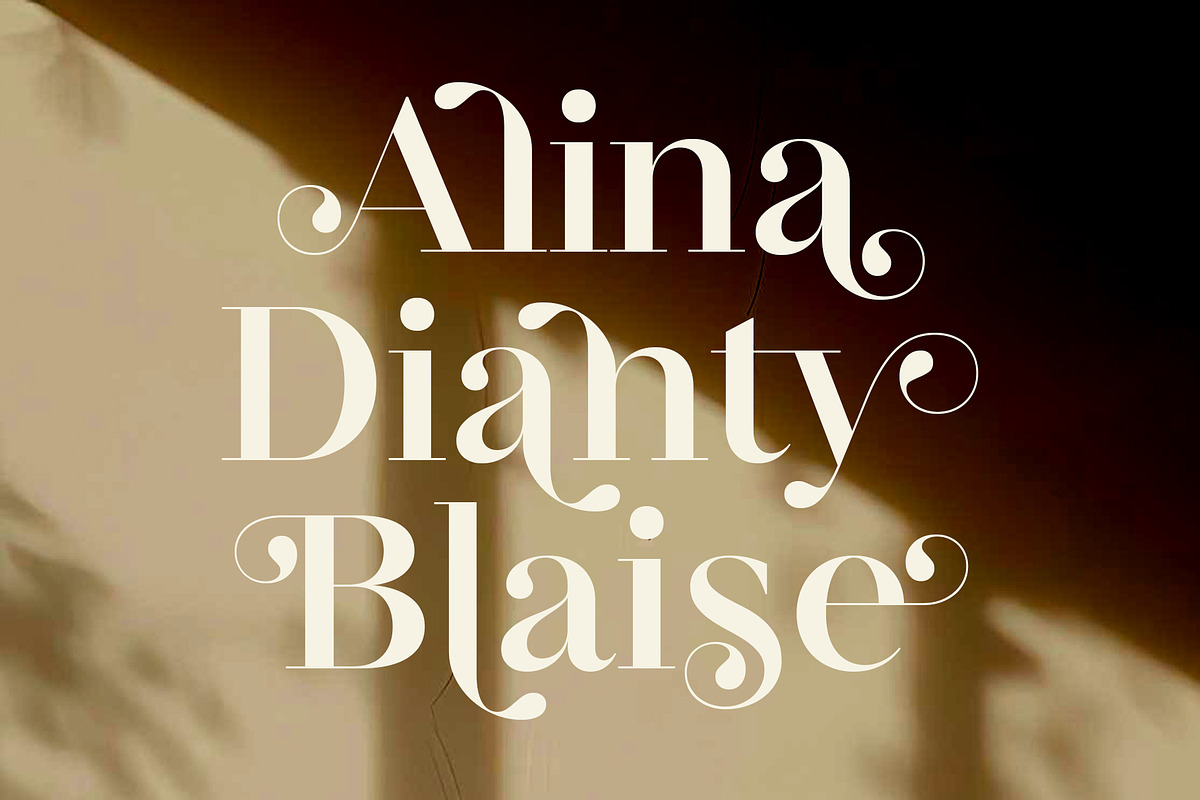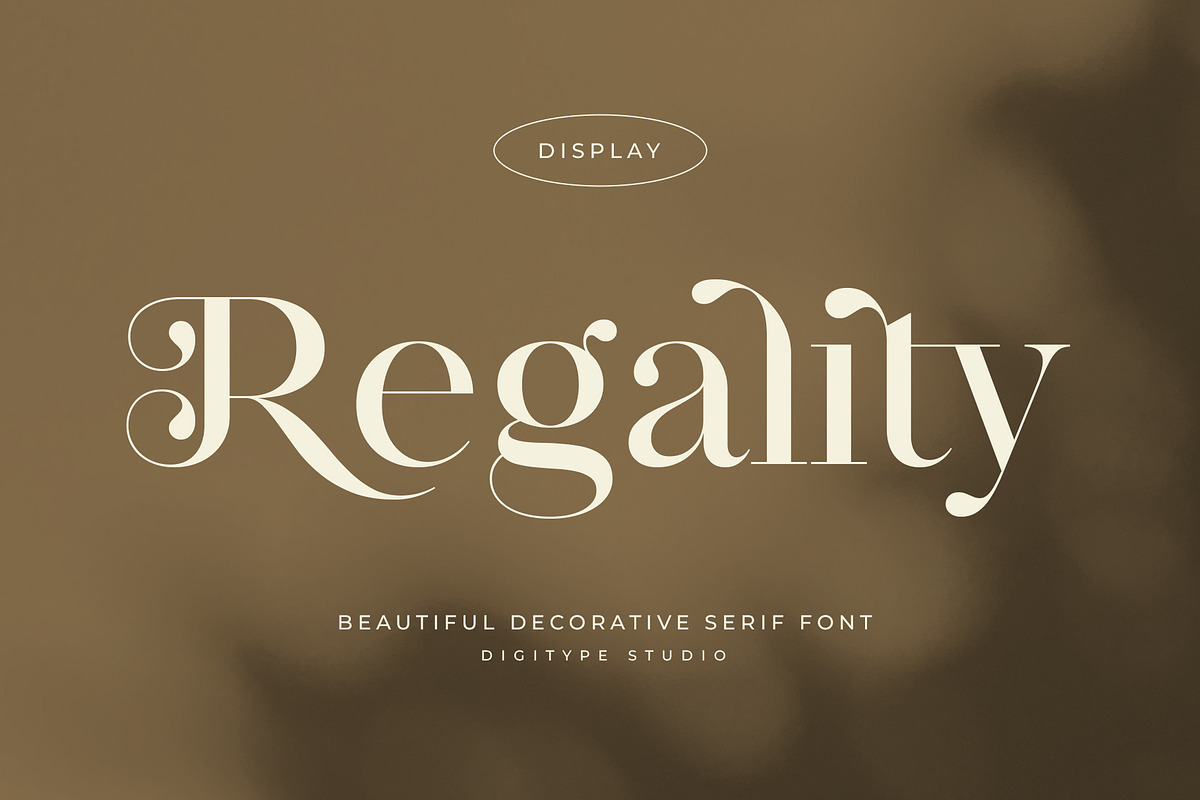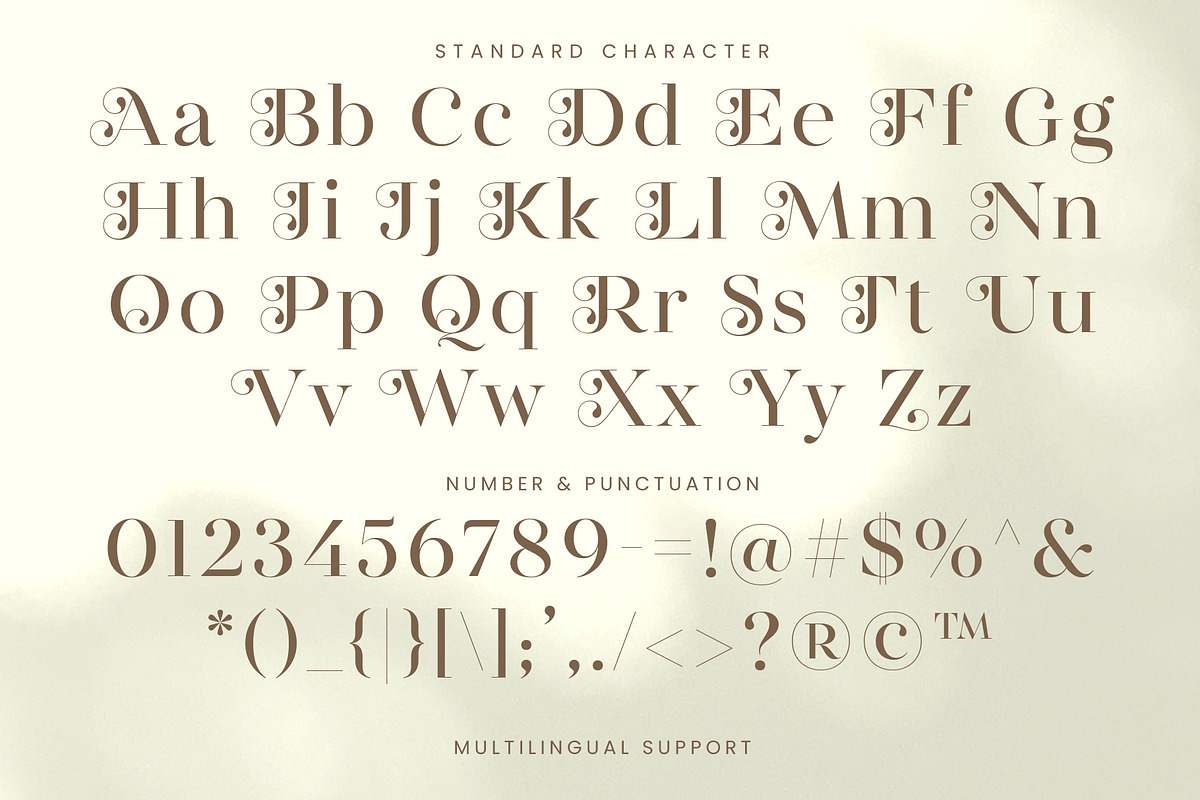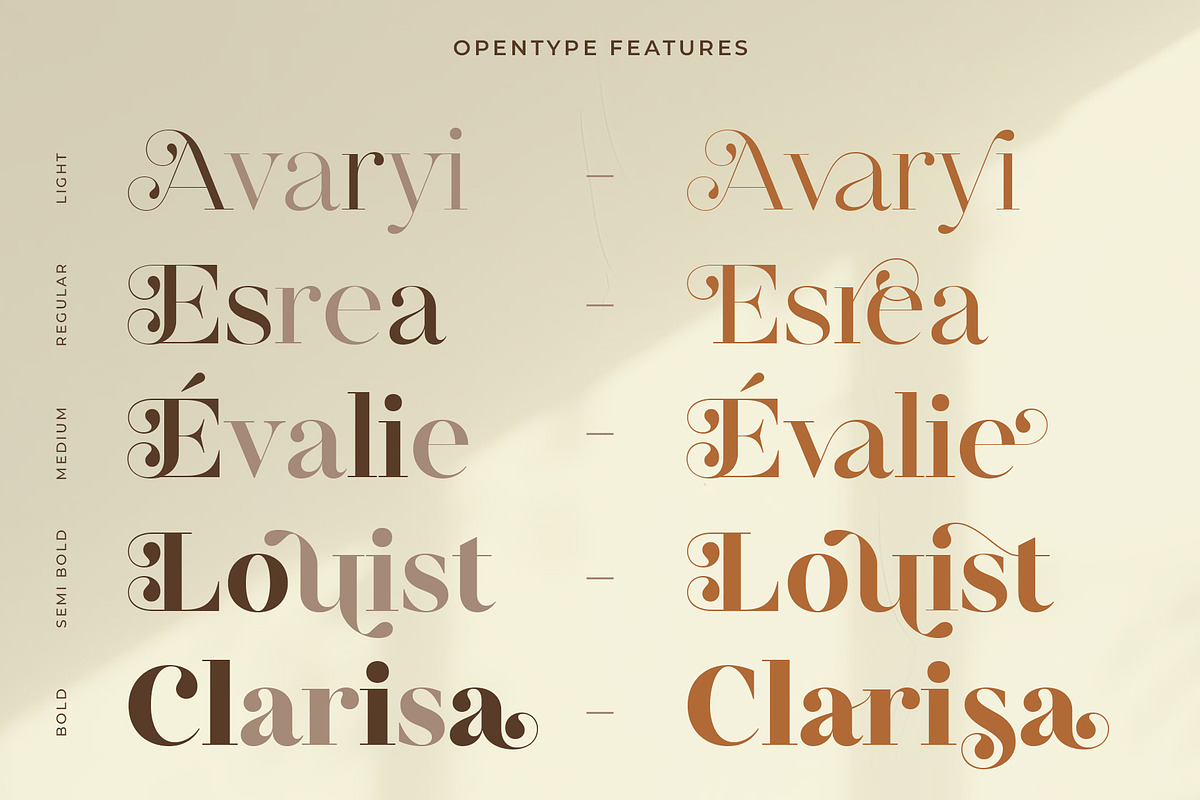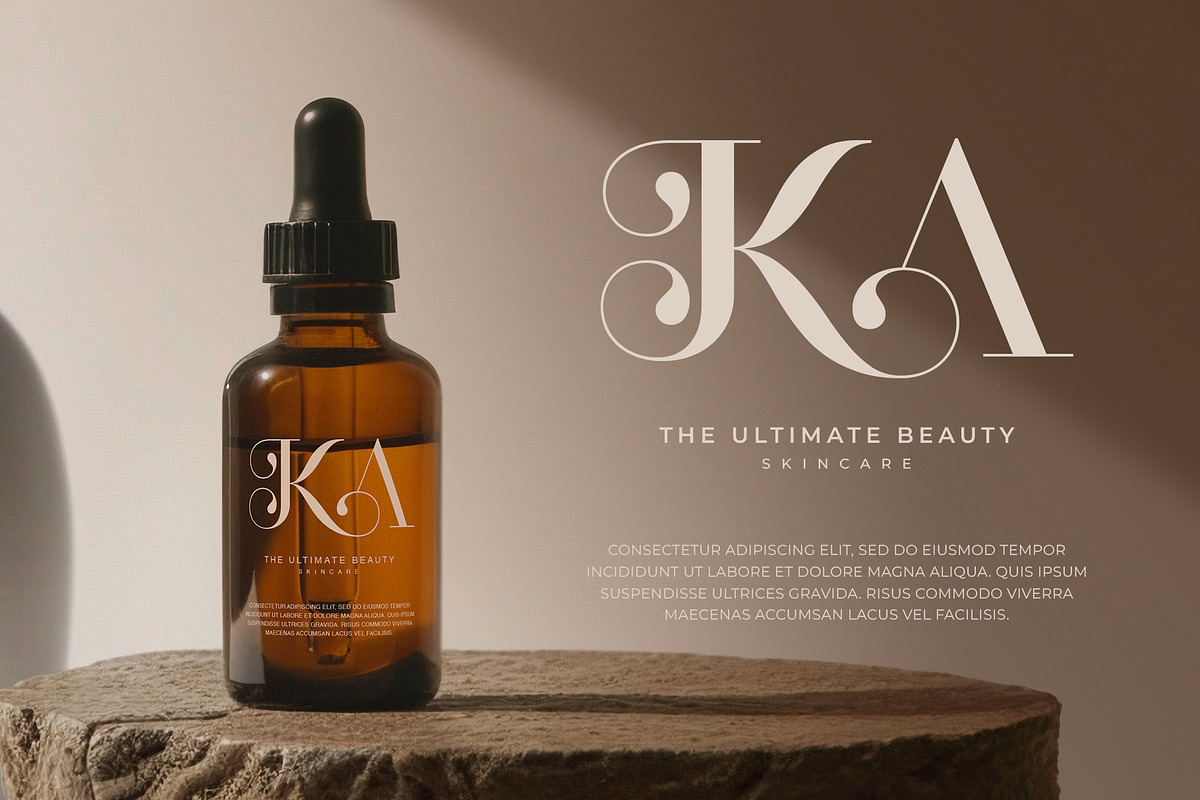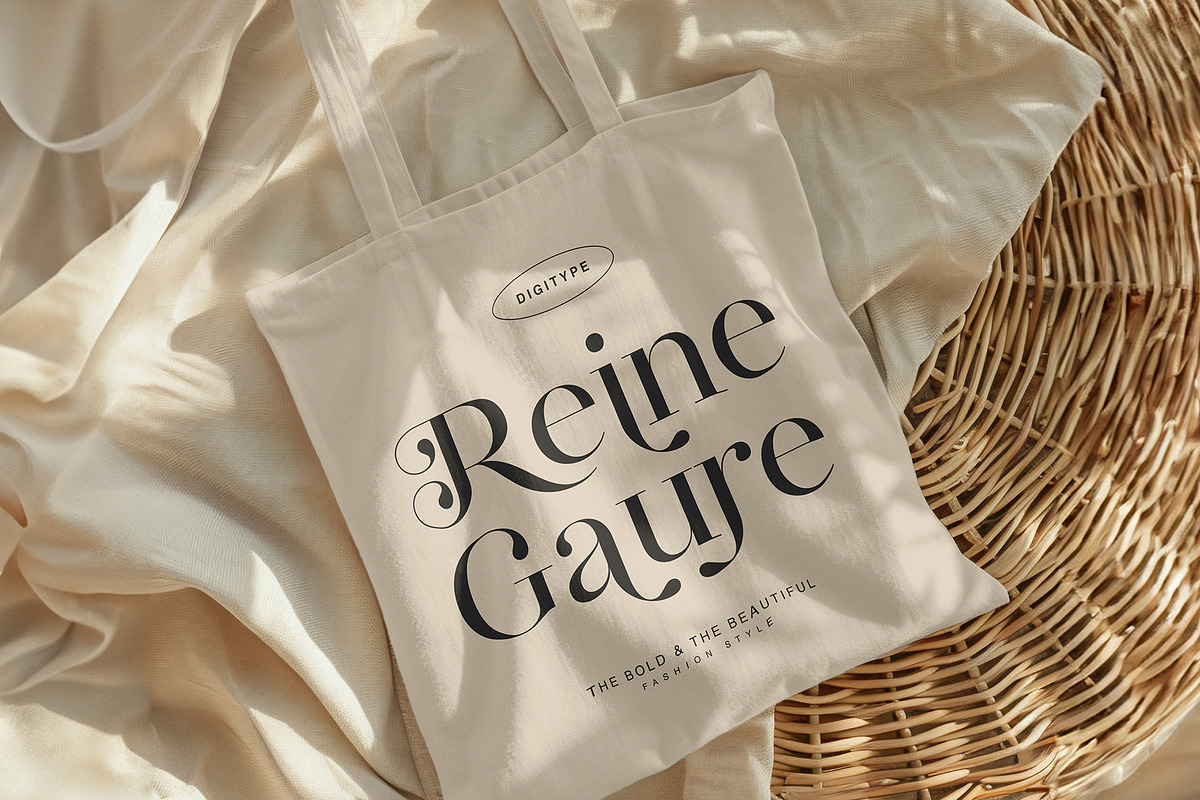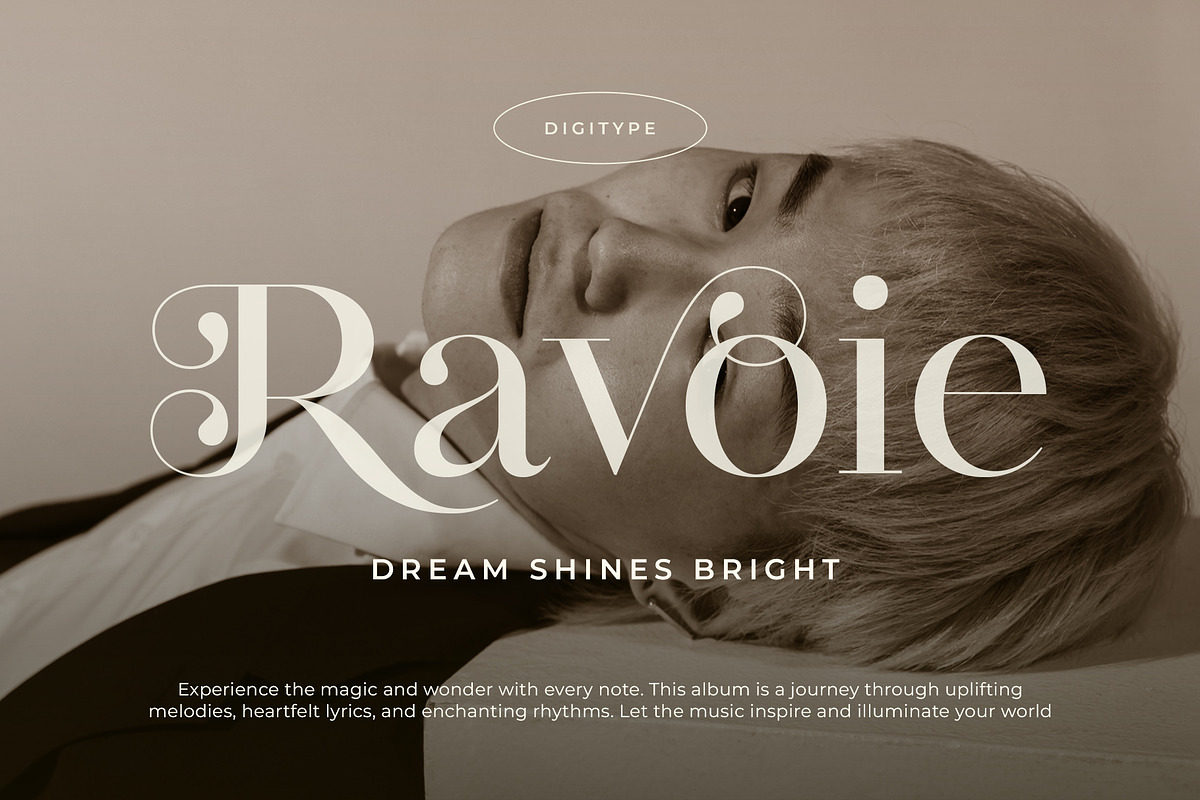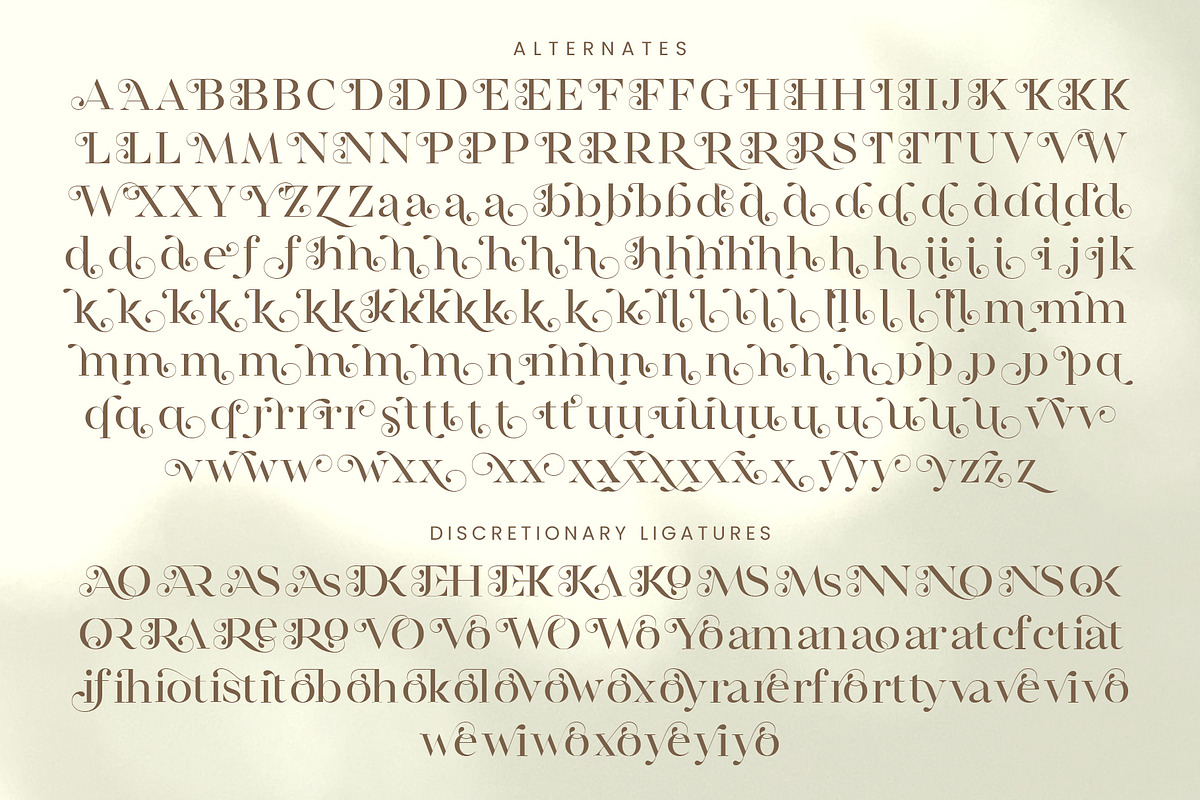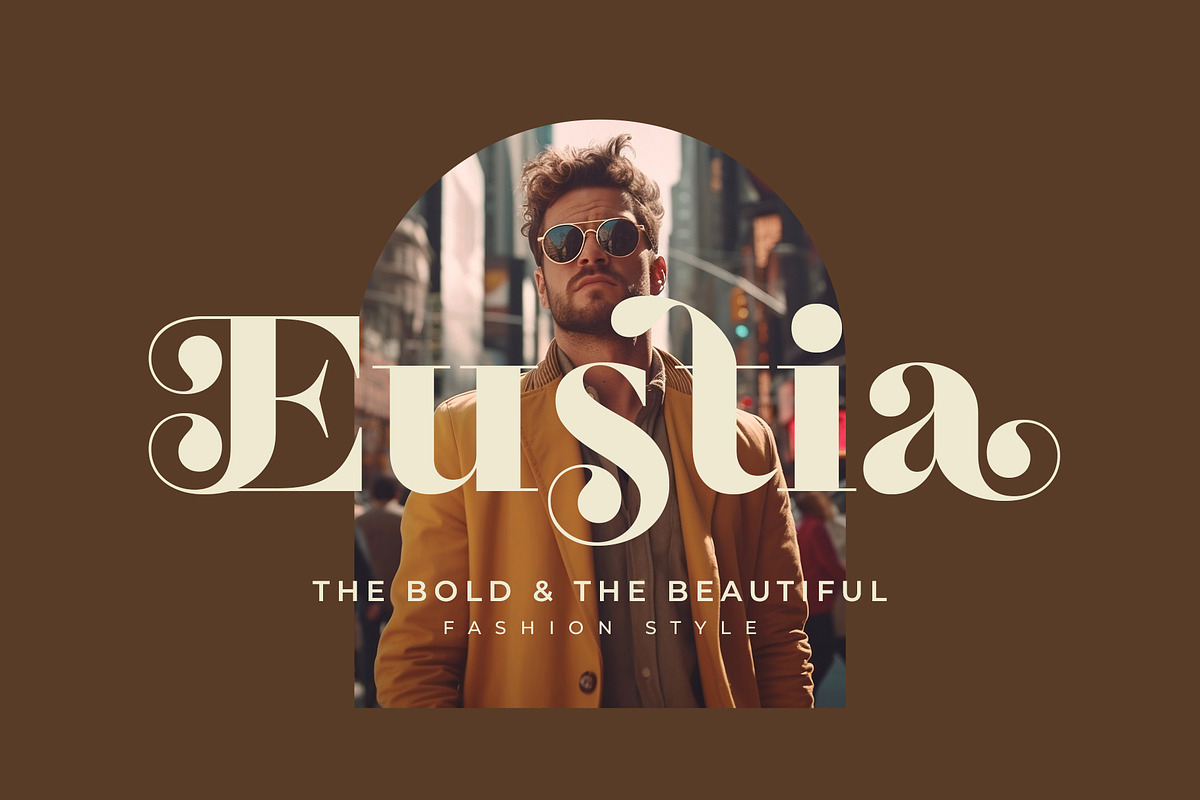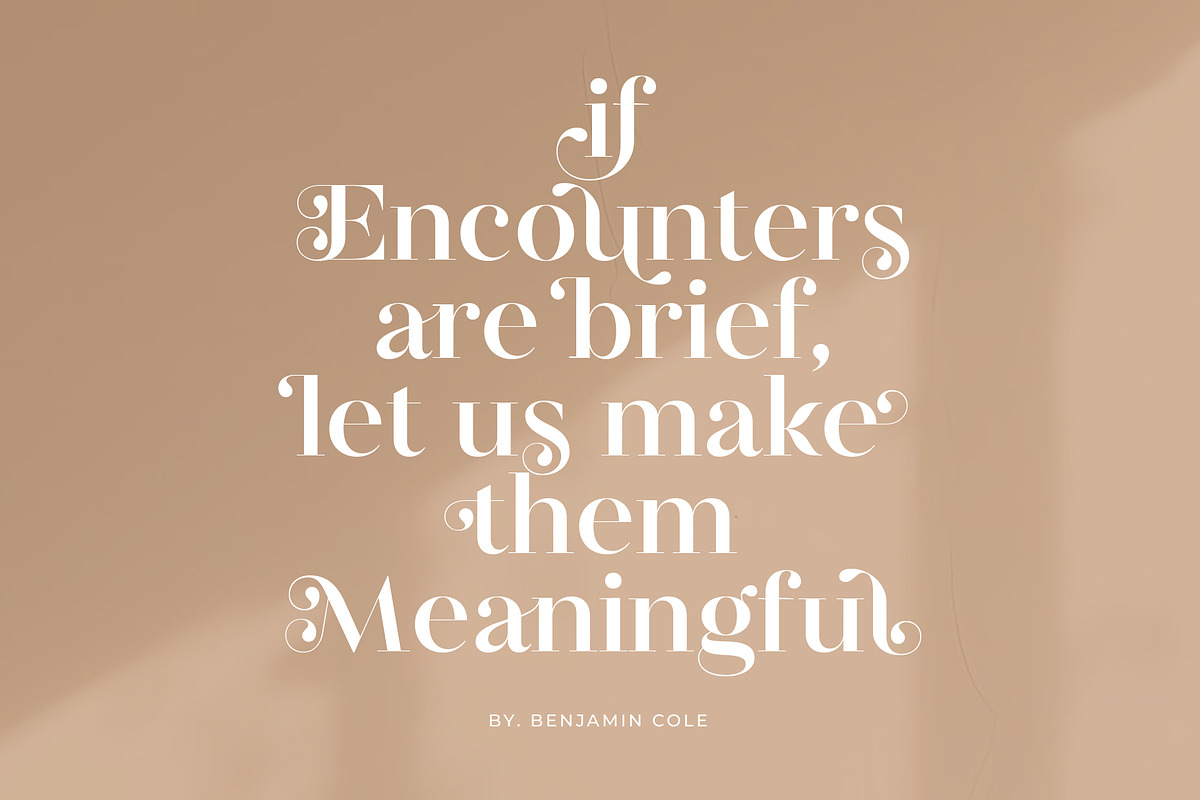
Regality Display
Regality Display is a decorative serif font with beautiful curves. Combining smooth, circular strokes and teardrop terminals makes this font unique and attractive. This font is designed to be used especially on logos and other formal forms such as invitations, labels, magazines, books, greeting/wedding cards, packaging, fashion, cosmetics, stationery, novels, or any advertising purposes.